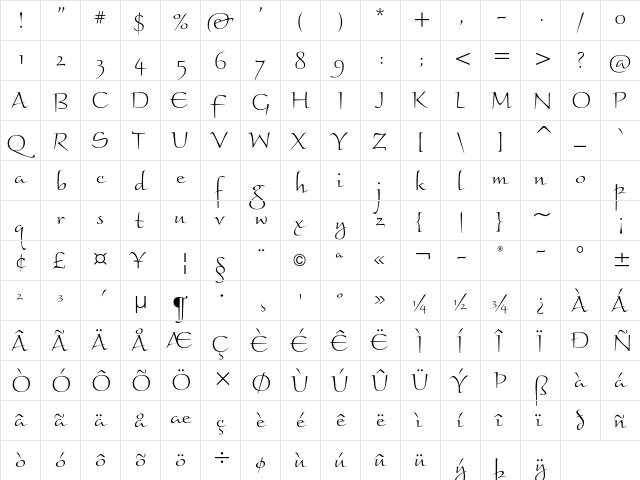
Braganza ITC Std Light
| Designer | Phill Grimshaw |
Design Context for Braganza ITC Std Typeface
Braganza ITC Std is a composed and adaptable typeface that performs quietly and consistently across a wide range of design contexts. The delicate stroke weight brings airiness and refinement to layouts.